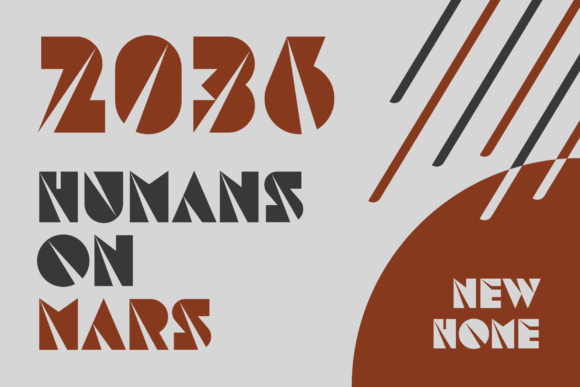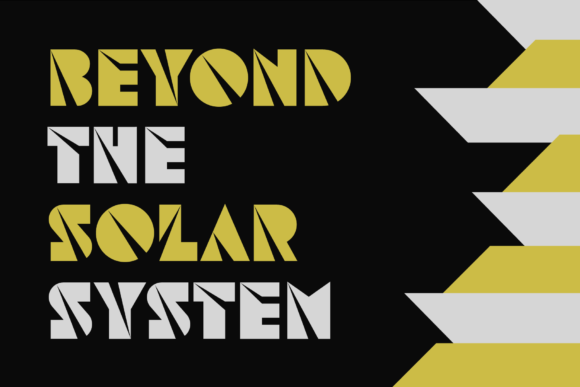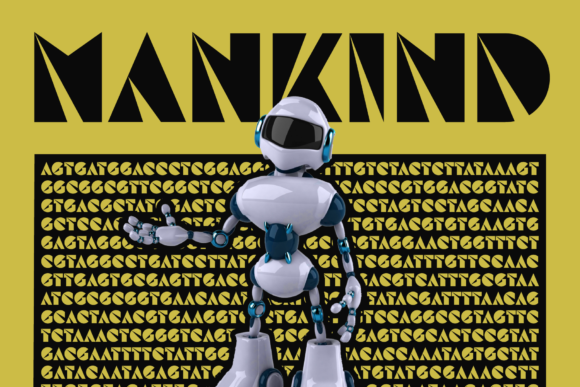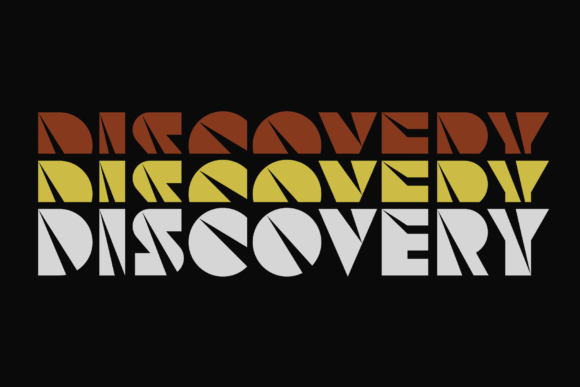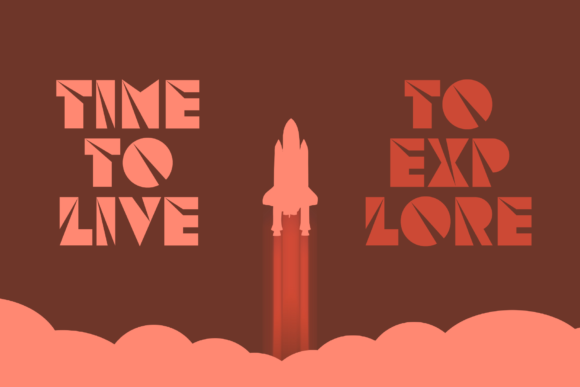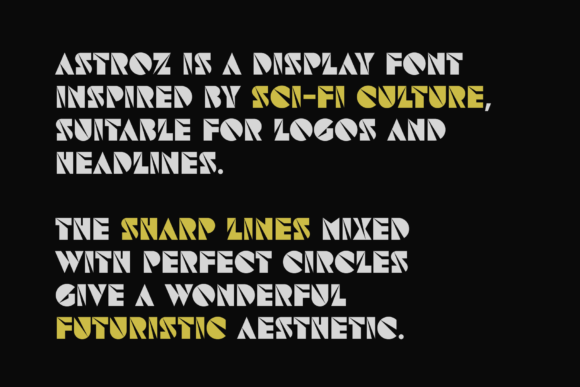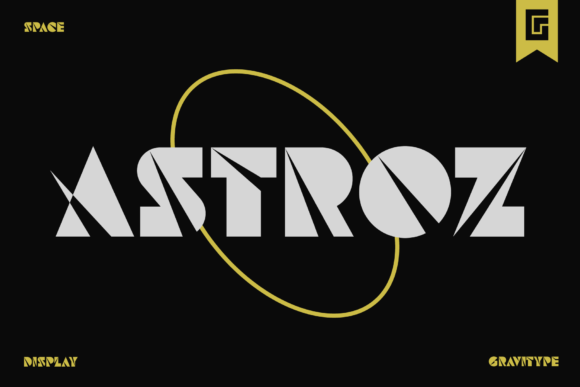
Explore the Cosmos with the Astroz Font
Have you ever found yourself gazing up at the stars, feeling a sense of awe and wonder at the vastness of the universe? That’s where the magic happens for designers, and that’s exactly where the Astroz Font comes in – a beautiful display font inspired by the Science Fiction culture and space environments.
Astroz Font is a game-changer for logos, headlines, and posters, bringing a futuristic touch to any design project. Its sharp lines and bold characters transport you to a world of intergalactic adventure, making it the perfect tool for designers who want to add a touch of cosmic flair to their work.
Astroz Font Key Features
- Unique Characteristics: Astroz Font features a unique blend of modern and celestial elements, making it perfect for designs that require a touch of sophistication and mysticism.
Astroz Font Review
Overall, I have mixed feelings about the Astroz font. It’s a beautiful and unique font that can be a great addition to the right design project.
- The Astroz font has a unique and futuristic feel that can be perfect for sci-fi or tech-related designs.
- The font is highly customizable, with a wide range of weights and styles to choose from.
- The font is well-suited for digital designs, such as website headers or app interfaces.
- The font may be difficult to read at small font sizes due to its complex design.
- The font may not be suitable for body text or large blocks of text due to its high x-height and unusual letterforms.
- The font is not as versatile as some other fonts, and may not work well in all design contexts.
The Astroz font is a great choice for designers looking to add a touch of futurism to their projects. However, it may not be the best choice for all design projects, and designers should carefully consider the limitations before using it.
For a more professional look, pair Astroz Font with a bold font for headings and a clean sans-serif font for body text.
Use Astroz Font to create eye-catching headlines and titles in your designs.
Use Astroz Font to add a touch of elegance to your presentations and documents.
For the most impact, use Astroz Font in headings and titles. Pair it with a bold font for a striking contrast.
- Designing business cards and letterheads.
- Creating promotional materials like brochures and flyers.
- Developing branding and marketing materials.
Experiment with different font sizes, colors, and styles to get the most out of Astroz Font.
Alternatives to Astroz Font
Montserrat is a modern sans-serif font designed for digital use. It is clean, geometric, and highly legible. Use Montserrat when you need a font that is both modern and versatile, suitable for headings and body text. Compared to Astroz Font, Montserrat has a more geometric and minimalist feel, making it ideal for digital products and websites.
Playfair Display is a luxurious serif font that is perfect for adding a touch of elegance to your designs. It features intricate details and ornate flourishes, making it ideal for high-end branding and advertising. Compared to Astroz Font, Playfair Display has a more classical and sophisticated feel, making it suitable for premium products and services.